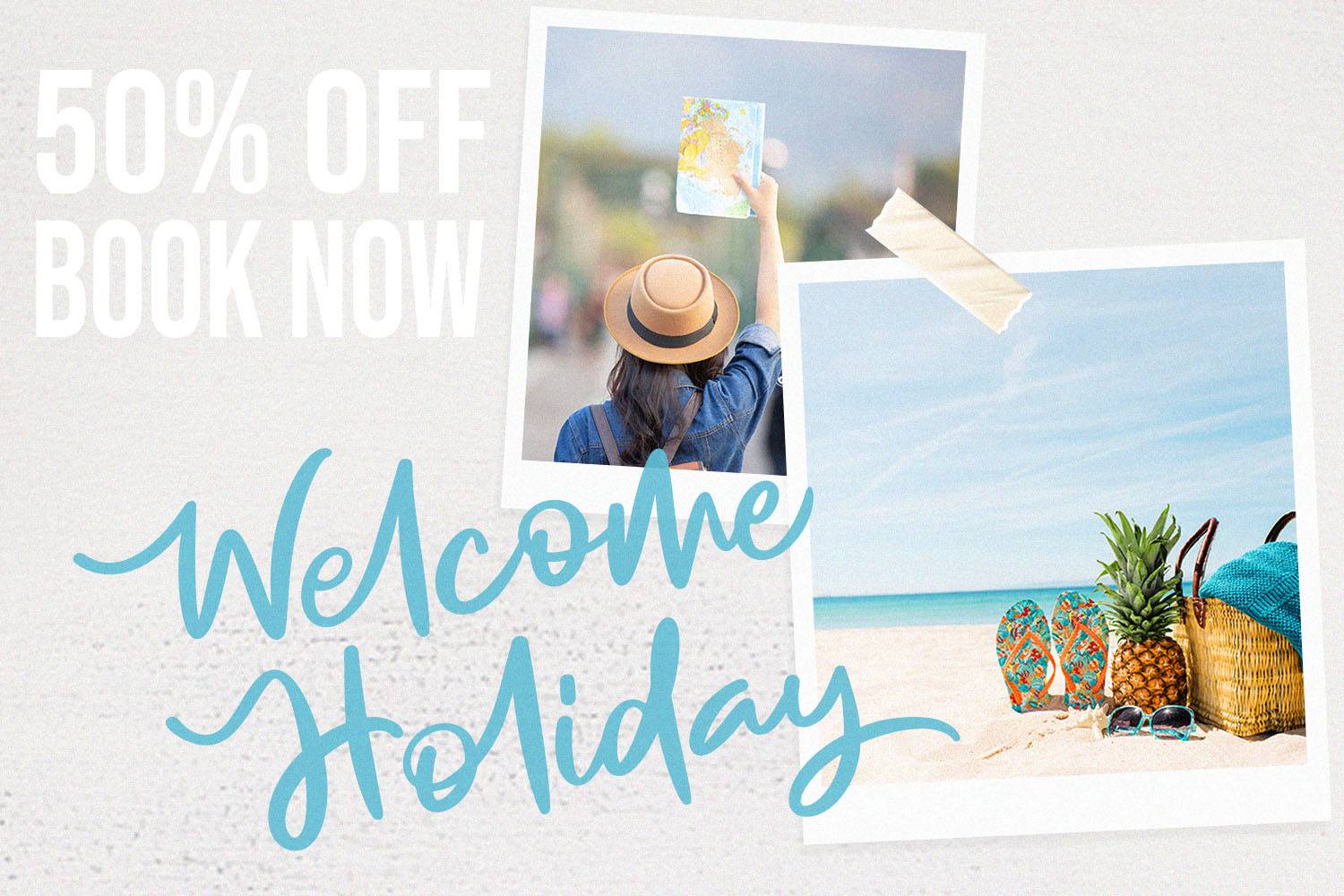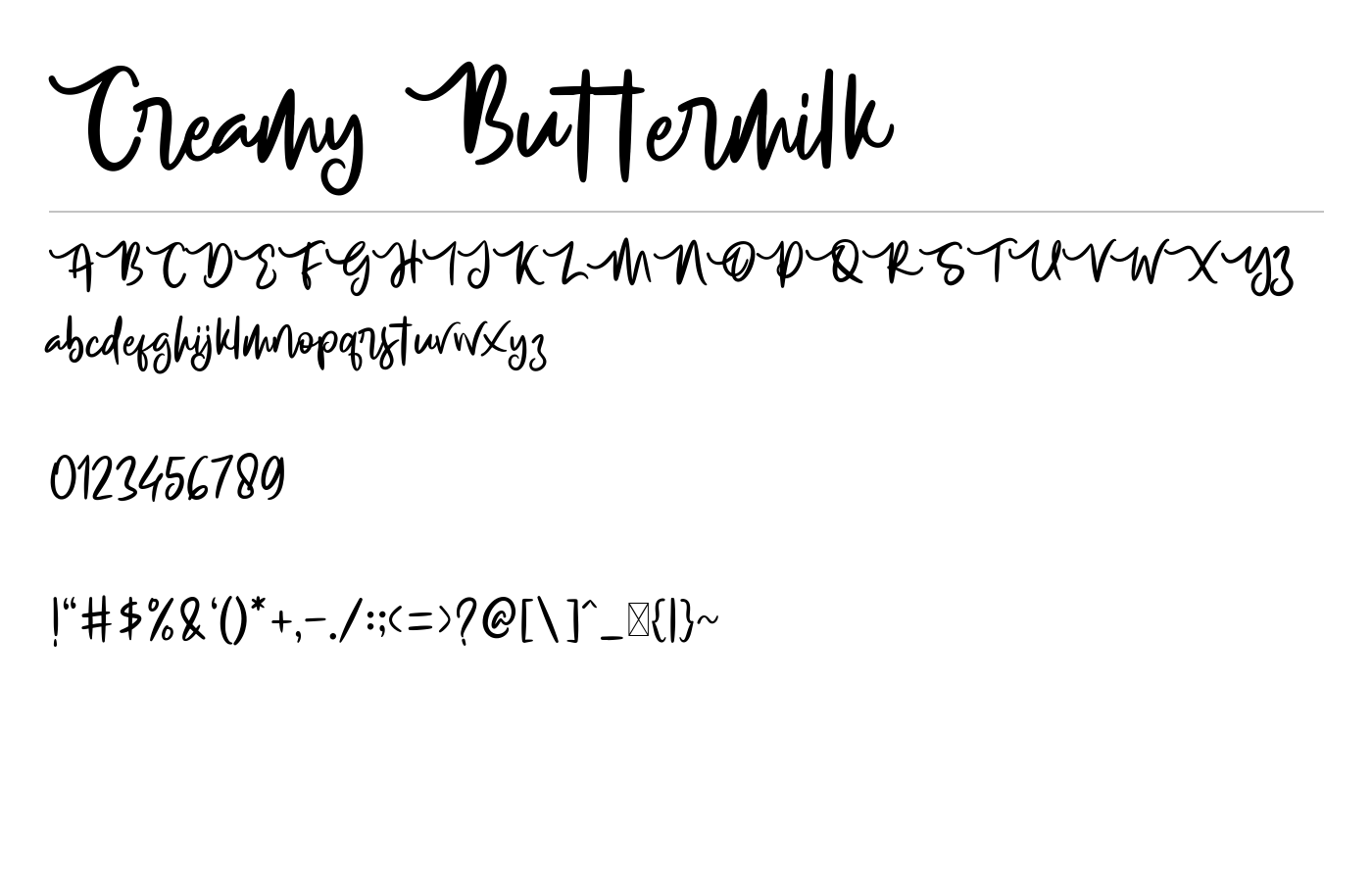
Creamy Buttermilk is a charming handwritten script font with a casual, playful vibe, featuring fluid strokes and a slightly uneven baseline that adds personality and warmth. Its medium weight and moderate contrast create a lively yet readable appearance, perfect for projects that want to evoke a friendly, approachable, and creative feel. This font works wonderfully for branding, invitations, and social media graphics where a personal, artistic touch is desired.
Creamy Buttermilk Font
About Creamy Buttermilk Font
| Font family | Creamy Buttermilk Font |
| Designer | Alpaprana |